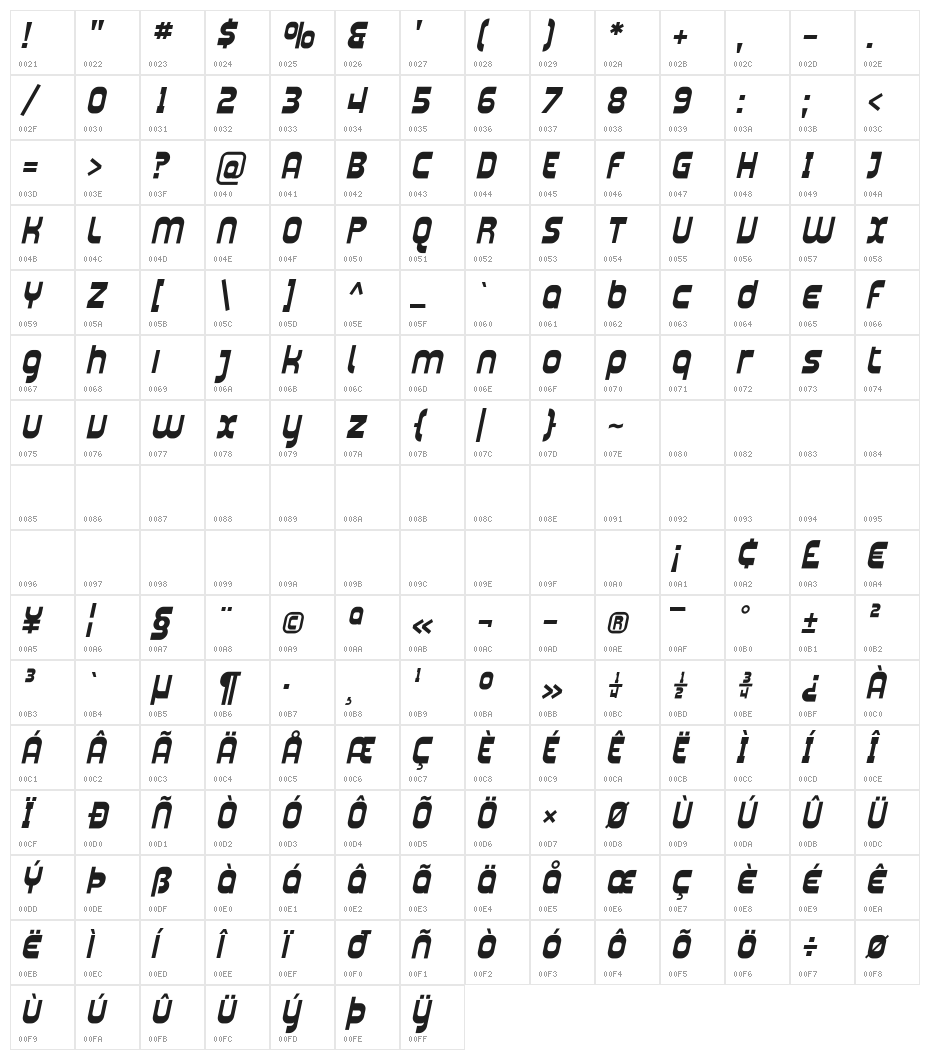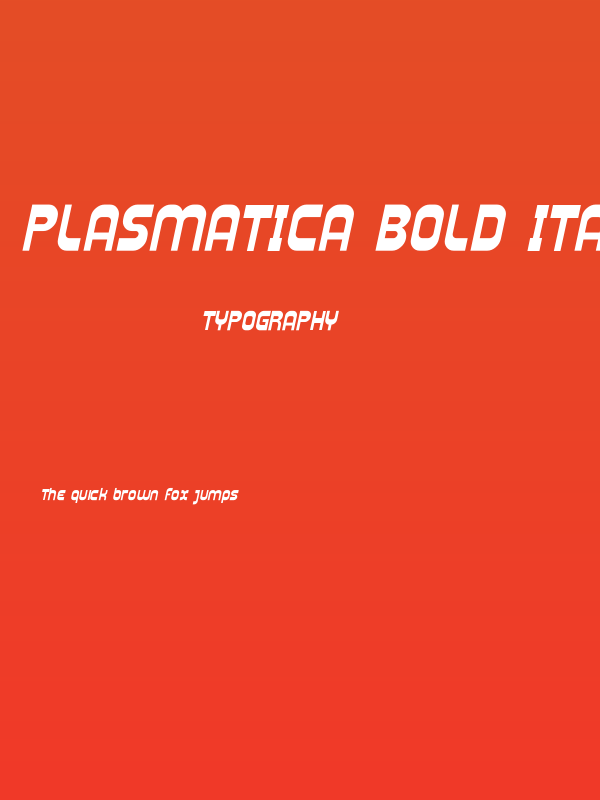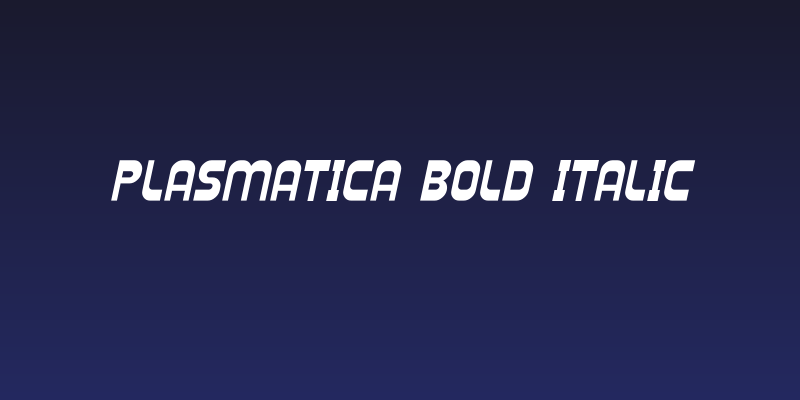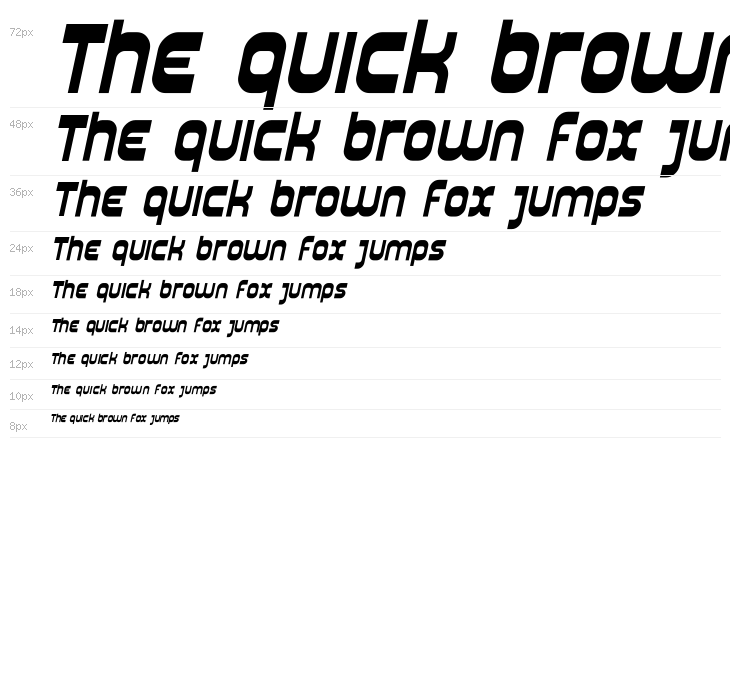
Plasmatica Bold Italic Font
Plasmatica Bold Italic Description
This font features a bold and italicized style with a futuristic and dynamic appearance. The characters are slightly slanted, giving a sense of motion and energy. The strokes are thick and consistent, creating a strong visual impact. The design is modern and sleek, with rounded edges that soften the overall look. The uppercase and lowercase letters maintain a uniform width, contributing to a cohesive appearance. Numbers and special characters are designed to match the bold and italicized theme, ensuring consistency across all elements.
| Proposed Projects | Ideal for technology branding, sci-fi posters, video game titles, and modern advertising. |